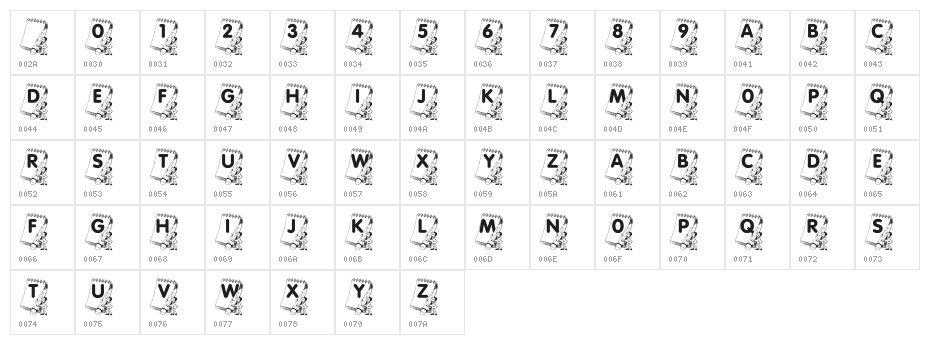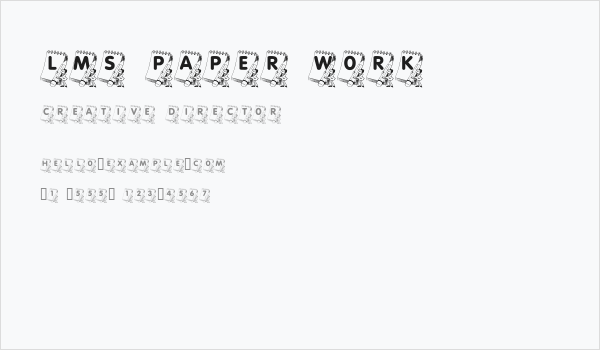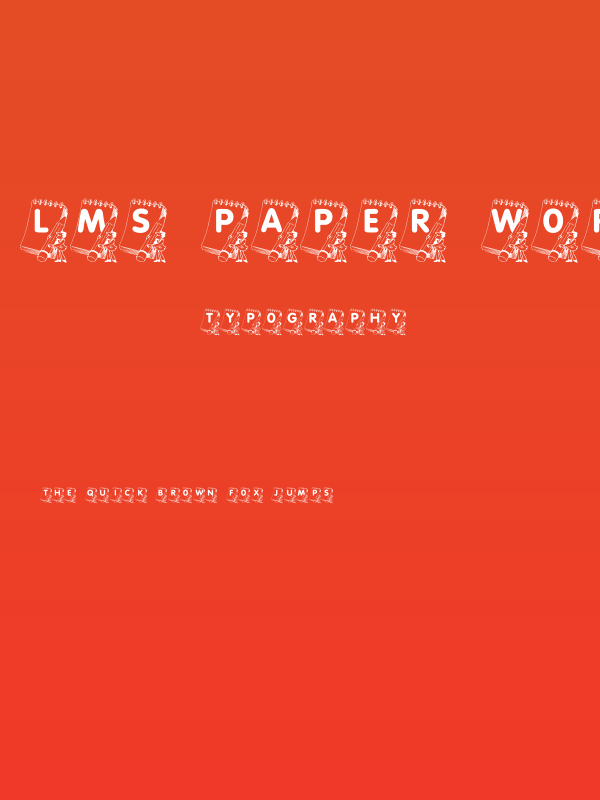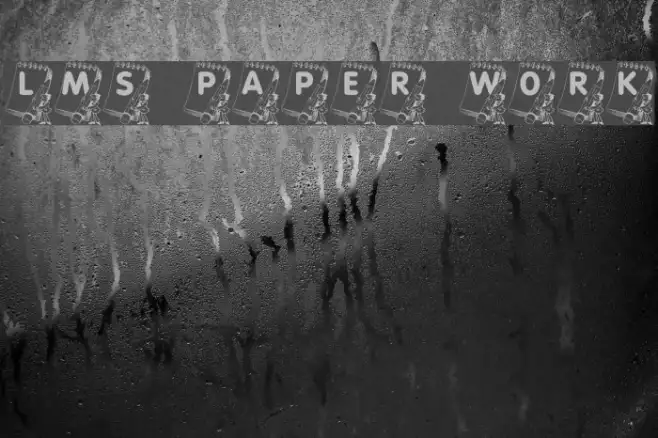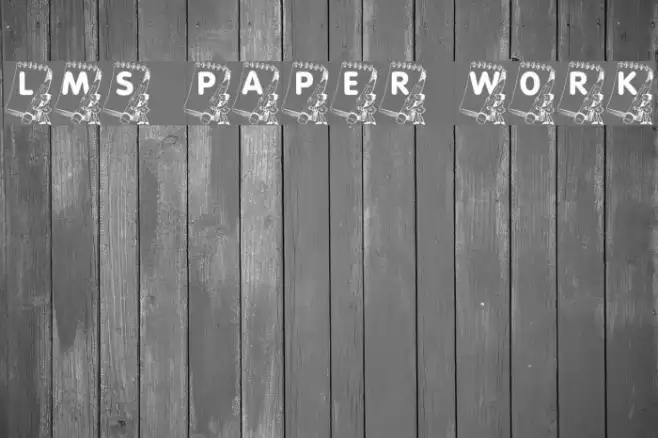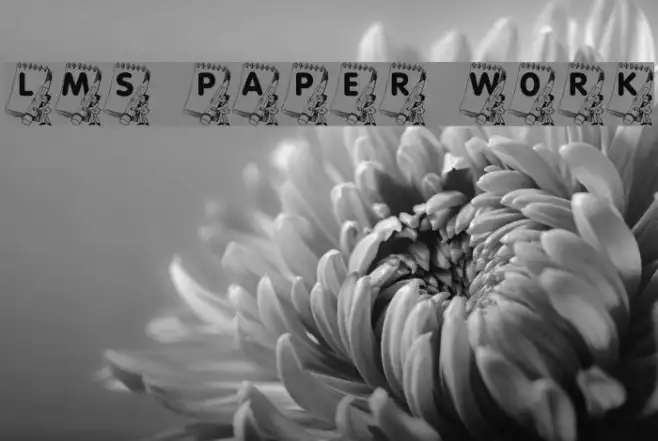
LMS Paper Work Font
LMS Paper Work Description
This playful and whimsical font features each character displayed on a notepad held by a cartoon figure, adding a unique and creative touch. The letters are bold and rounded, providing a friendly and approachable feel. The design is consistent across uppercase letters, numbers, and special characters, maintaining the notepad theme throughout. This font is ideal for projects that require a fun and informal style, such as children's books, educational materials, or playful branding. The characters are well-spaced, ensuring readability while maintaining the decorative aspect of the design.
| Proposed Projects | Children's books, educational materials, playful branding, greeting cards, and creative posters. |